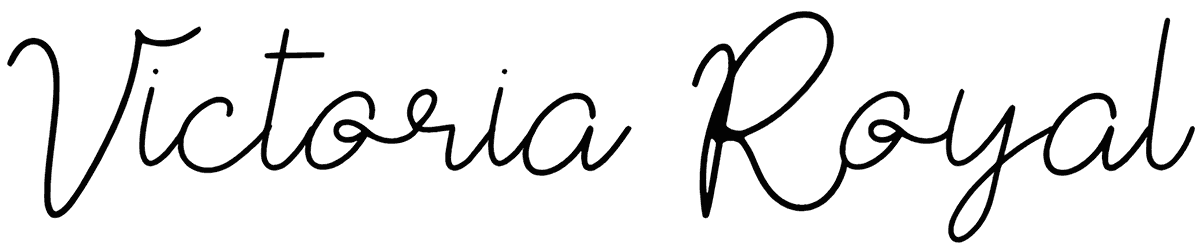
Victoria Royal Font
Let’s take a look at this beautiful handwritten font, Victoria Royal, which includes a complete set of characters. All the letters are drawn pretty well and look natural, elegant, and minimal.
They give off a casual, friendly vibe to your work, but maybe seem unreadable because of their cursive style. This neon font will be a great choice for wedding invitations, Valentine’s letters, branding designs, novel covers, and signatures.